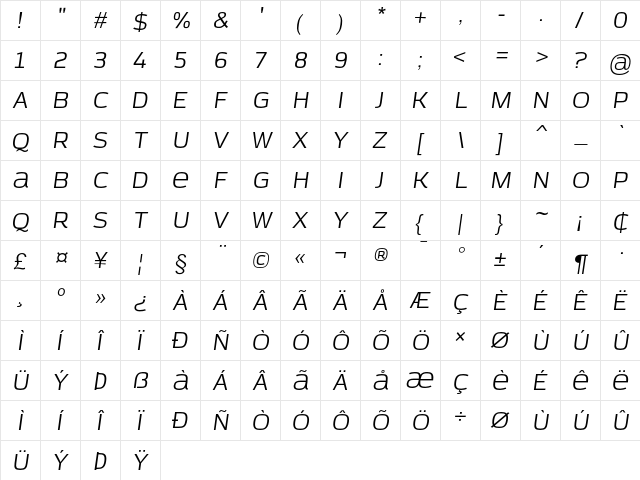
Azoft Sans Italic
Design Context for Azoft Sans Typeface
Azoft Sans is a composed and adaptable typeface that performs quietly and consistently across a wide range of design contexts. Its italic angle brings a sense of urgency and motion to the letterforms.
Pro Tip: Try Azoft Sans for annotation and caption copy alongside an upright companion — the contrast in angle creates a dynamic but ordered typographic system.